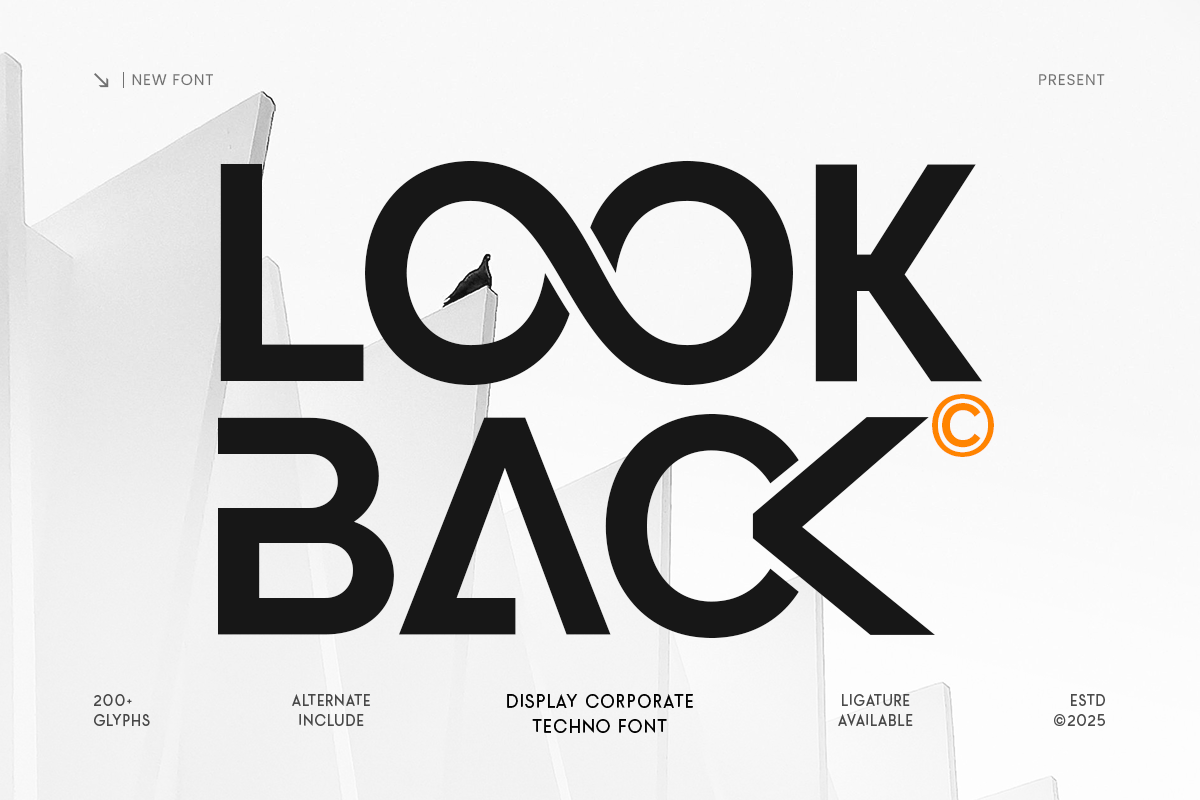
Look Back
-Display Corporate Techno Font
Look Back - Display Corporate Techno Font
LOOK BACK is a display corporate techno font designed to balance futuristic energy with professional clarity. Built with clean geometry and a confident modern structure, this typeface delivers a sleek tech mood that still feels corporate-ready—perfect for brands that want to look innovative and trustworthy.
Ideal for corporate branding, technology companies, SaaS startups, and digital products, LOOK BACK works beautifully across logos, website headers, UI/UX interfaces, presentations, posters, and social media campaigns. Its display strength makes headlines pop, while its polished style keeps layouts crisp and business-friendly.
Whether you’re designing for fintech, AI, consulting, or modern enterprise branding, LOOK BACK helps your typography communicate innovation, precision, and a forward-thinking identity across both digital and print applications.
LOOK BACK – Corporate Techno Display Features
• Corporate techno display letterforms with clean modern geometry
• Designed for business branding, tech identity, and professional headlines
• Perfect for logos, website headers, UI/UX, and digital products
• Strong clarity for presentations, signage, posters, and ads
• Optimized for both screen readability and print production
• OpenType features for flexible, polished typography